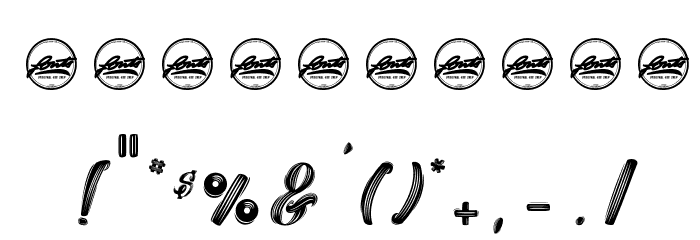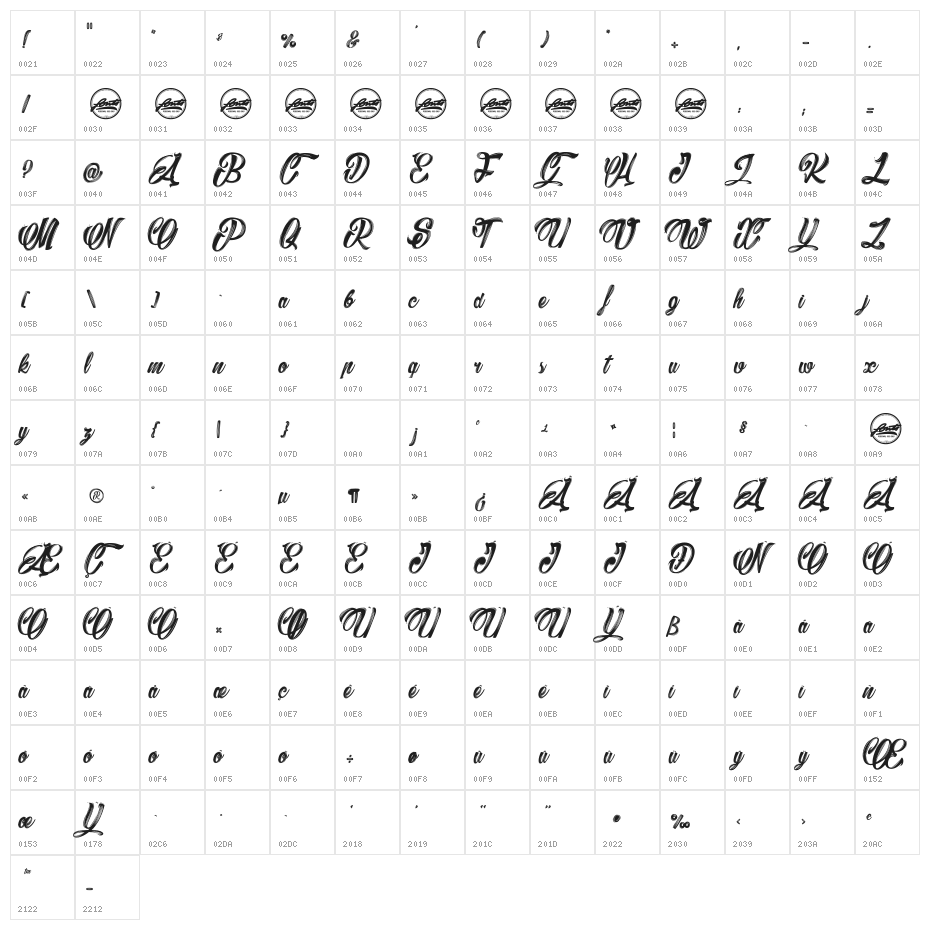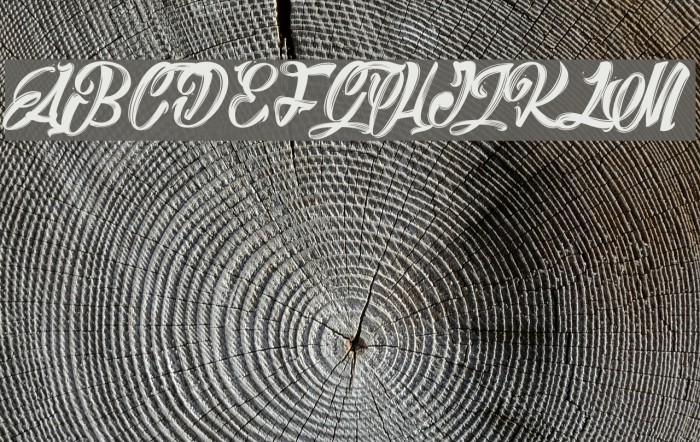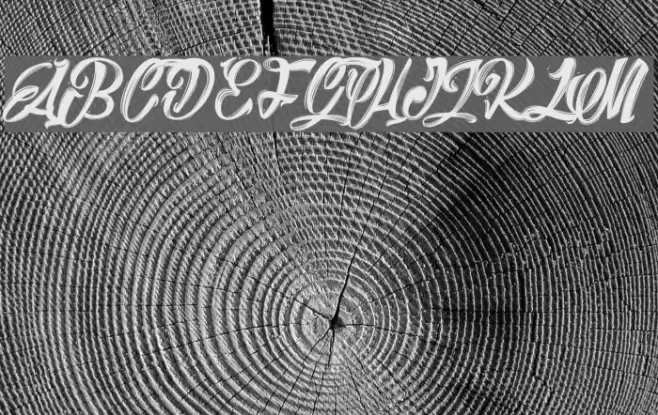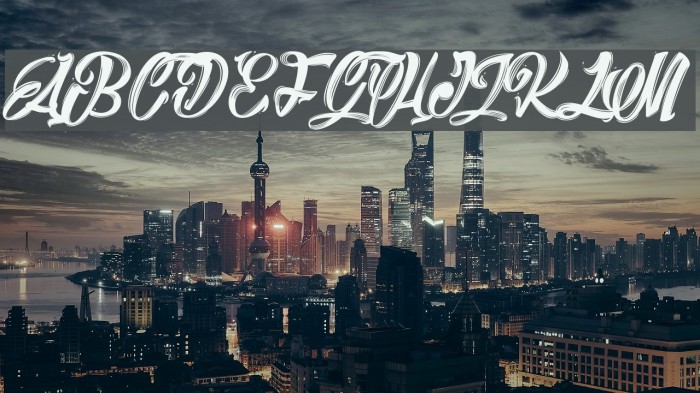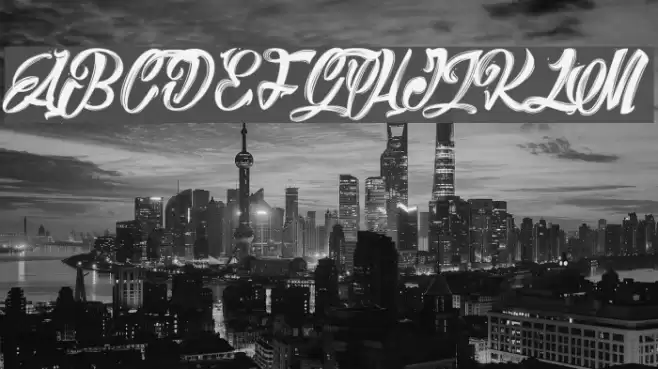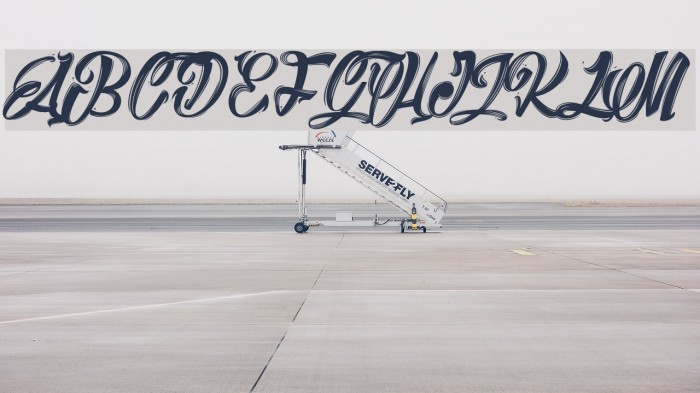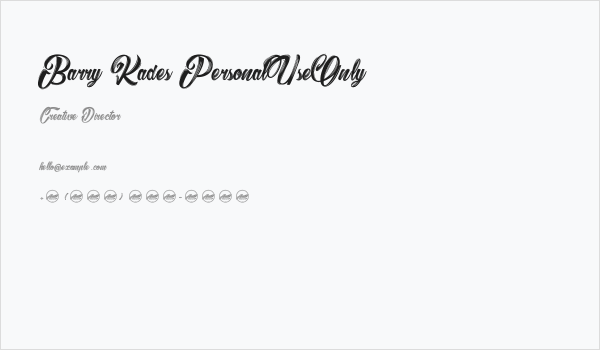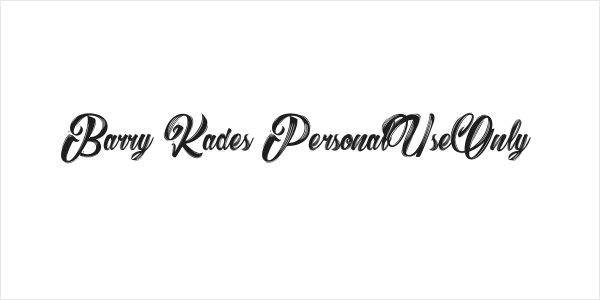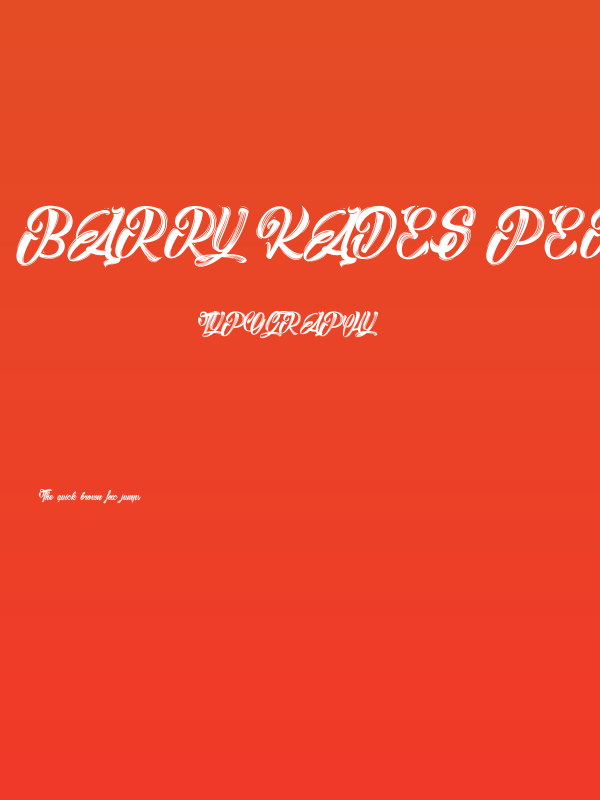
Barry Kades_PersonalUseOnly Font
Barry Kades_PersonalUseOnly Description
This font features an elegant and decorative script style with a bold and flowing appearance. The uppercase letters are highly stylized with intricate loops and swirls, giving them a dynamic and artistic flair. The lowercase letters maintain a consistent flow, complementing the uppercase with their smooth curves and connected strokes. The numbers and special characters are equally ornate, ensuring a cohesive look across all elements. This font's unique design is suitable for projects that require a touch of sophistication and creativity.
| Proposed Projects | Ideal for wedding invitations, luxury branding, artistic posters, and elegant packaging designs. |